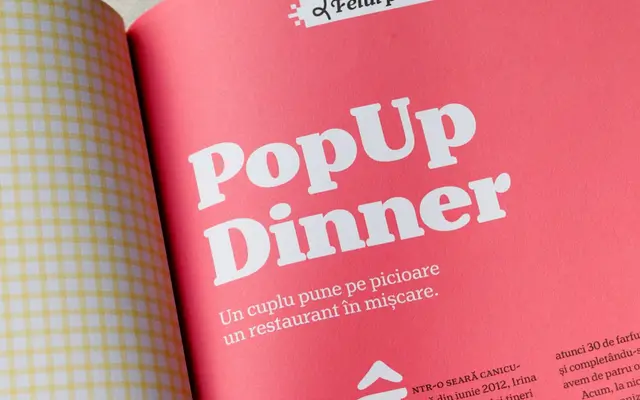
Henriette
Drawn from the fragmented legacy of 1920s Viennese street sign lettering, Henriette synthesises 16 surviving variants into a single coherent display family across three widths.
Rather than digitising any single surviving version, Michael Hochleitner studied the full range of Viennese street sign typefaces that emerged from successive redrawings by enamel manufacturers, then distilled them into one family of 31 styles. The family spans Normal, Condensed and Compressed widths, each available in multiple weights with fully original italics designed to accompany the roman. OpenType features include ligatures, swash caps, stylistic alternates and figure styles, giving it considerable range beyond its signage origins.
Henriette draws from Viennese street sign lettering of the 1920s, a tradition rooted in heavy display serifs with condensed variants. The family's bold, upright character and its origins in signage typography place it firmly in display territory.